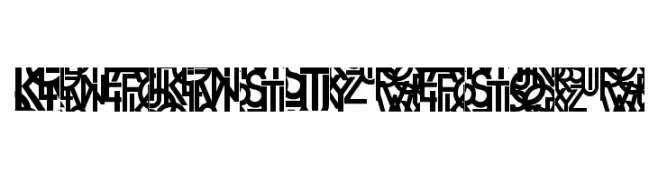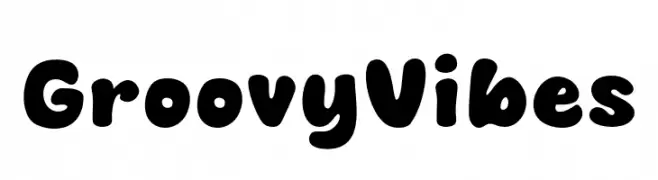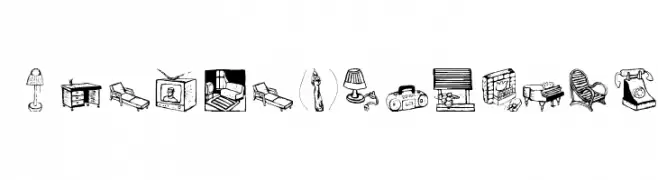
A decorative and complex font with interlocking letterforms, ideal for artistic projects.
Graffiti-style, bold, urban font.
A playful, hand-drawn style with rounded, irregular letterforms.
Iconic pictogram font with commodity and household object silhouettes.
A bold, rounded font with a playful, retro vibe.
A bold, expressive brush-style font with a hand-painted appearance.
Hand-drawn furniture and decor illustrations as font glyphs.
A bold, rounded font with a playful and whimsical style.
A playful, tropical-themed font with bold, rounded characters and palm tree motifs.